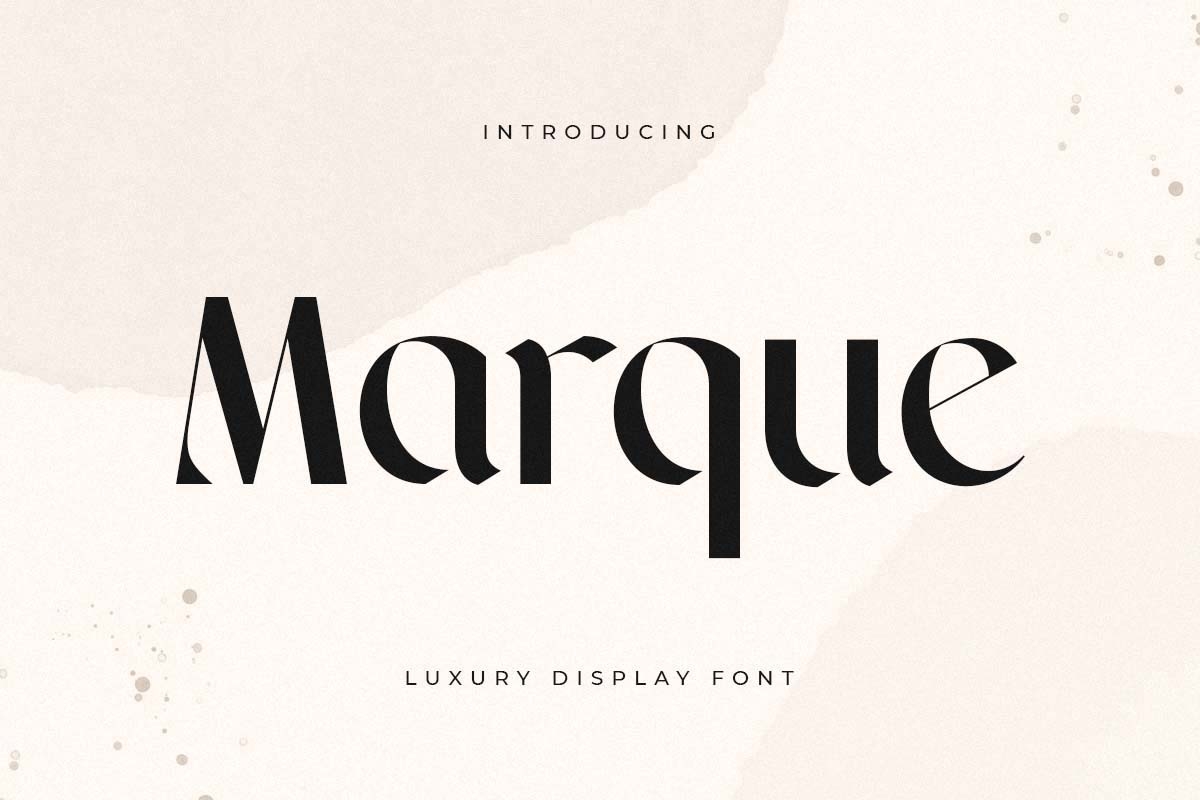
Marque
-Luxury Display Font
Marque
A Display font that we created special for luxury branding needs, with extra ligature and alternates in unique shape will be ready to add value of your brand. It so nice to leverage designer or product owner that need solutions to make their design look more Luxury and modern. And specially for Marque font, We prepared any ligatures, and any alternate characters to help you create unlimited variations for your creative needs.